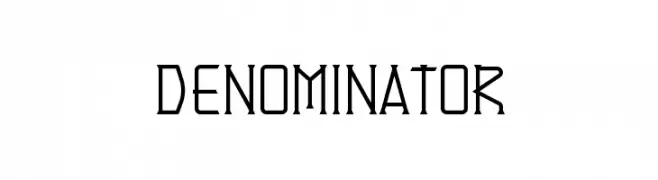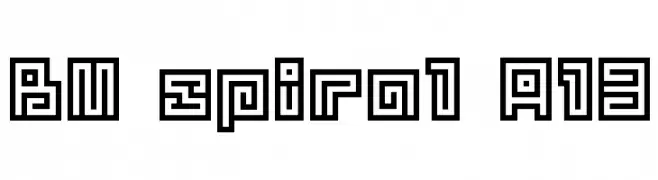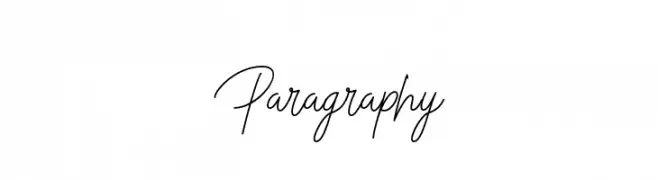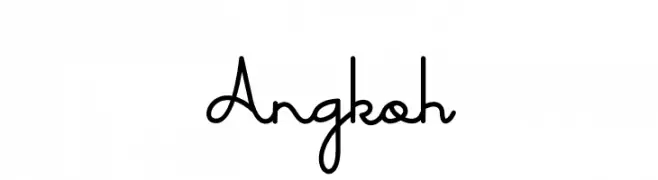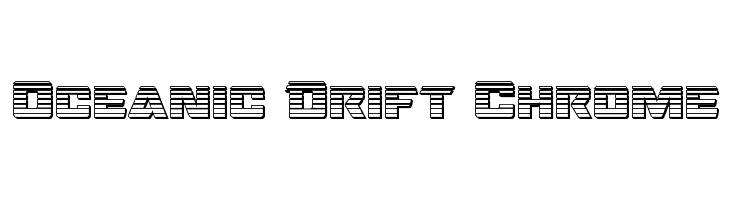
A bold, icon-based font featuring various lighter illustrations.
A playful, bold font with rounded, cartoonish characters.
A geometric, angular font with a modern and technical style.
A modern, rounded font with geometric and playful elements.
A bold, geometric font with a maze-like, futuristic design.
An elegant script font with fluid, interconnected strokes and a handwritten style.
A playful, handwritten script font with smooth, flowing lines.
A playful, artistic font with abstract facial elements in each letter.
A bold, futuristic font with a distinctive striped pattern.
A playful, handwritten font with tall, narrow letters and smooth strokes.